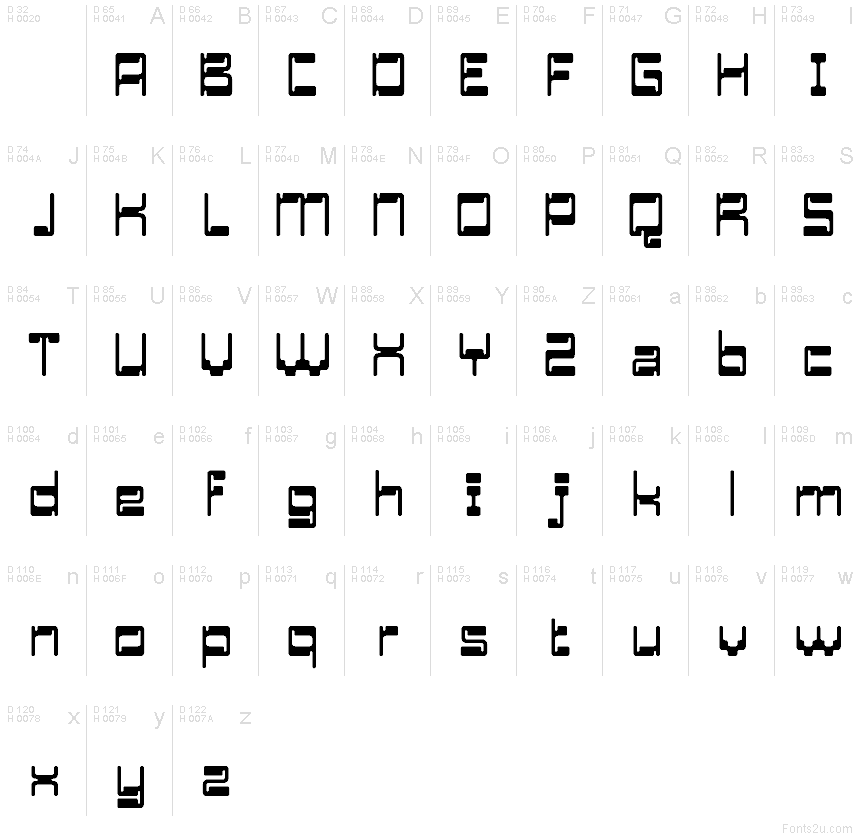
CS Bunker Regular Demo
CS Bunker font by Craft Supply Co. executes a geometric structure for its letterforms with rounded edges and professional endings to promote readability in all text sizes. The expanded display typeface is presented in a futuristic style with digital aesthetics which left it with an innovative sleek design present and consistent that reflects modern appeal.
The free futuristic font can suit web designs including websites, HTML templates, Google Slides themes, PowerPoint templates, e-learning materials, social media posts or stories. Use it on print-ready magazines/ newspaper front covers or headlines inside, flyers/posters/pamphlets cover texts, book covers/titles/headers/sub-headers etc.\n